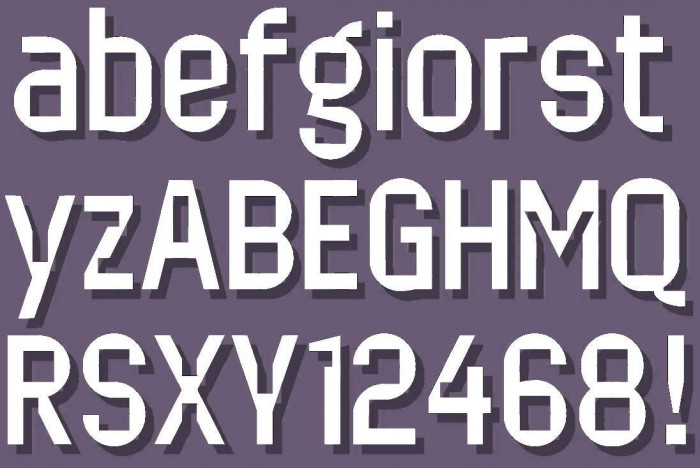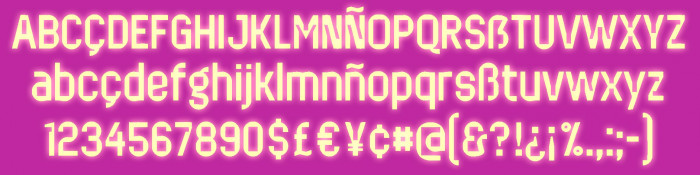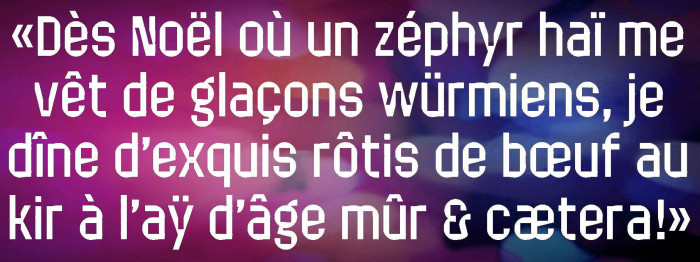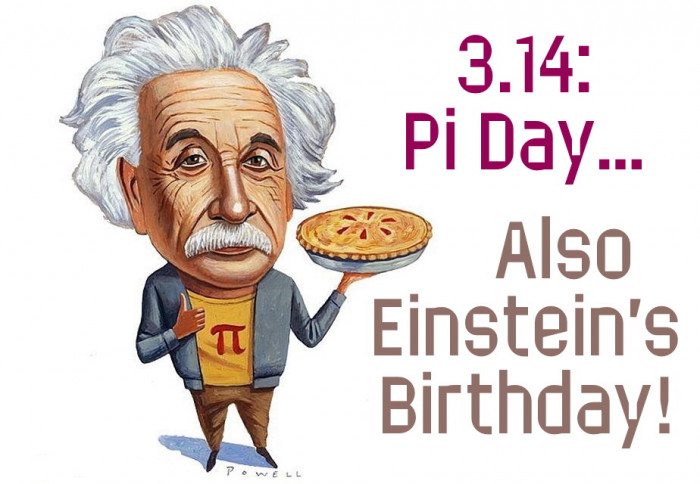
The combination of square counters and rectangular inktraps works really well.
Thanks a lot, compañero! Perhaps the capital letters have been a little small compared to the highest glyphs of the lowercase, and sometimes I have thought about increasing their height a little. What do you think about that?
If you are going to increase the height of the upper case, I don't think they need much (maybe just a little nudge or two). I like it that the ascenders are slightly higher than the capitals. The overshoots are good too.
Thanks a million, dear four. Our convergent thinking appears once again. I'm gonna try to raise the height of the uppercase a little bit and see what happens then with the readability of the font. Thank you again and keep safe you and yours (one year of Covid-19 just now! Aargh! Unthinkable!).
Beautiful atomic age design! Pure elmo magic, entirely resolved but with a jazzy hint of intaglio somewhere in there... ¹⁰/₁₀
I wonder if that little jog on the 1 could be carried through other perpendicular junctions, especially when enclosed such as with the G. Simplicity is a priority here, yet those solid square corners read a little heavy without ink traps.
@will.i.ૐ: Dear Master, you make me blush with your always kind and supportive words. Thank you very much once again. Honestly, I had thought of ink traps only to be used at angles <90 ° (like in the upper junction "1"), so those angles you were talking about - in the "G" and other glyphs - were left out of rank. But yours is an opinion to keep in mind, which I am going to try to use in a new version of the font that I am creating with your suggestions and those of four. I hope to improve the font with them. And I also hope like April rain a certain explanation about your brick patching (coughs) ... Be careful and stay safe, please.